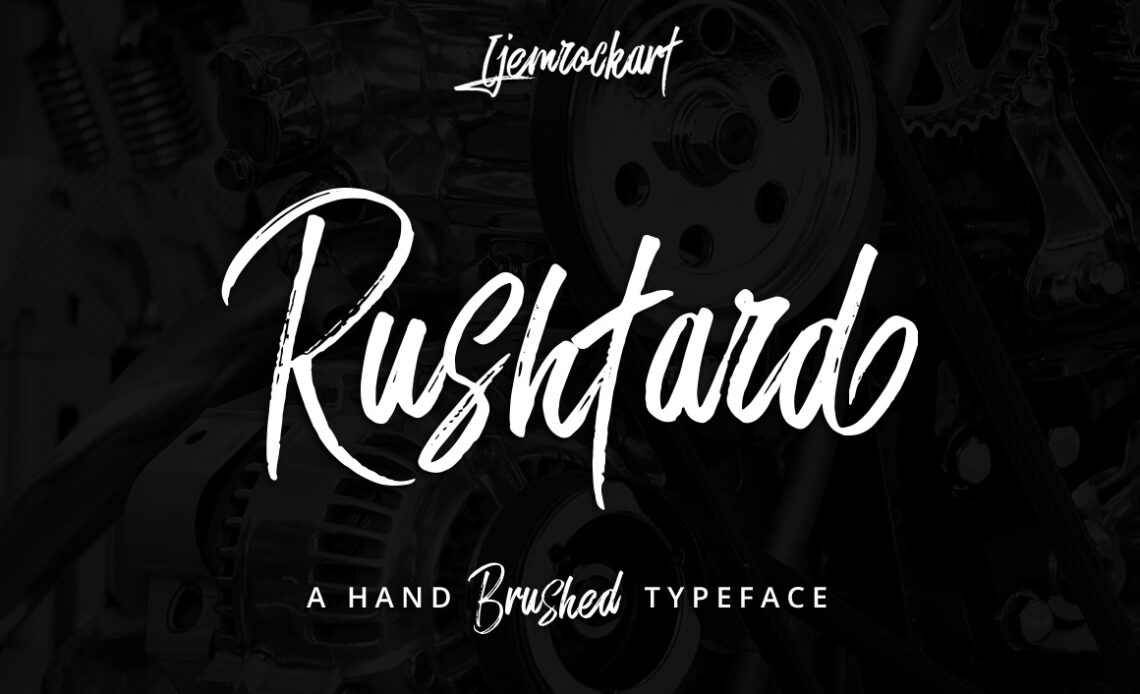
Introducing Rushtard Brush Font, a captivating journey through the world of typography. This meticulously crafted font, brought to life by the visionary Ijem RockArt, offers a fusion of grit and elegance that will elevate your designs to new heights. Dive into the world of Rushtard and unleash your artistic vision.
Rushtard's enchanting brushstrokes evoke a sense of authenticity and rawness, making it the perfect choice for designs seeking an edge. Its grunge appeal adds a touch of rebellion, while its flowing script style exudes a contemporary charm. Whether you're a seasoned designer or just starting out, Rushtard is the perfect font to add a touch of individuality to your work.
With its versatility, Rushtard effortlessly adapts to a wide range of design projects. Create eye-catching logos that leave a lasting impression, craft stunning social media graphics that captivate audiences, or design unique invitations and greeting cards that reflect your personal style. Rushtard's limitless potential is waiting to be explored, ready to transform your ideas into captivating realities.
Step into the realm of creative possibilities with Rushtard Brush Font. Its distinct character and versatility make it a must-have for any designer seeking to make a statement. Embrace the power of Rushtard and watch your designs come alive with an energy that captivates and inspires. Let your creativity flow, explore the boundless possibilities, and experience the magic of Rushtard.